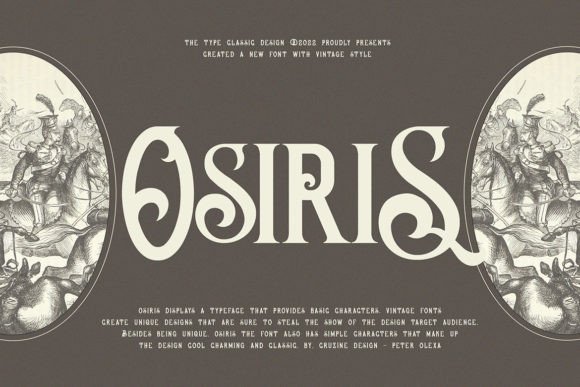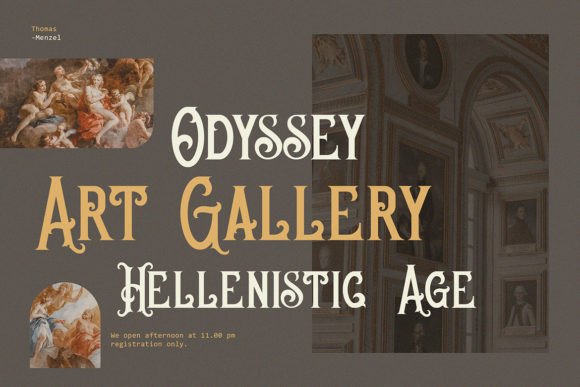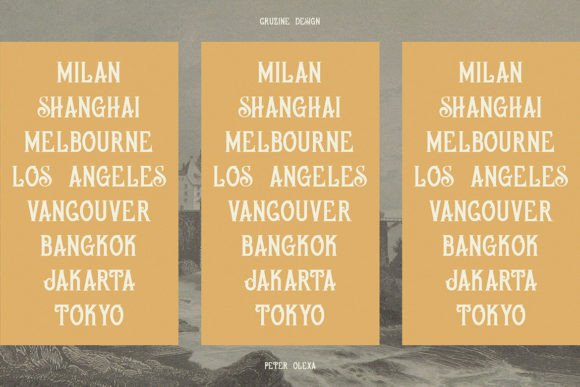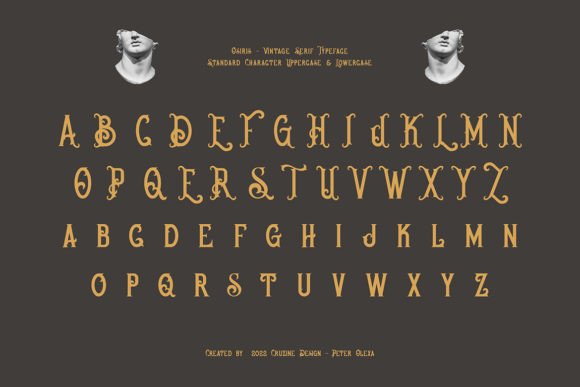
Osiris Font: Elegant Vintage Serif for Headlines & Logo Design
About the Osiris Font
Get ready to be inspired by Osiris Font, a fresh and dynamic typeface for modern creators. Osiris is a stylish, distinctive, and vintage serif font with smooth curves and elegant lines. With a hint of vintage charm, this font is perfect for creating visual impact for logos and headlines. Its unique look will give your designs a unique, eye-catching edge.
Osiris excels in headlines, logos, and short, impactful text for branding projects, posters, and packaging where its vintage charm and distinctive character shine. Avoid using it for body copy or lengthy paragraphs; its elegance is best showcased in concise applications. The unique serifs might hinder readability in smaller sizes or extended text blocks.
Its personality is sophisticated yet approachable; a touch of vintage elegance with a modern twist. Brands aiming for a refined, slightly nostalgic feel—think boutique hotels, artisanal food products, or vintage clothing lines—would find Osiris a strong choice.
Pairing Osiris with a clean sans-serif like Open Sans or Lato for body text creates excellent contrast and readability. For a more playful feel, consider a script font like Great Vibes; for a more modern approach, a geometric sans-serif such as Montserrat would work well.
Osiris Font Usage Examples